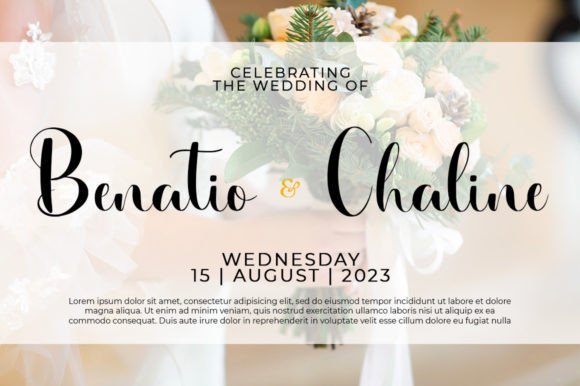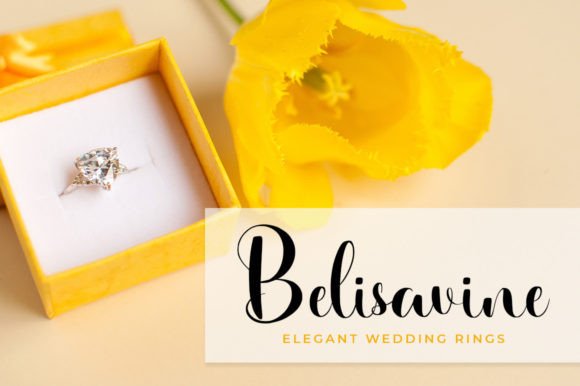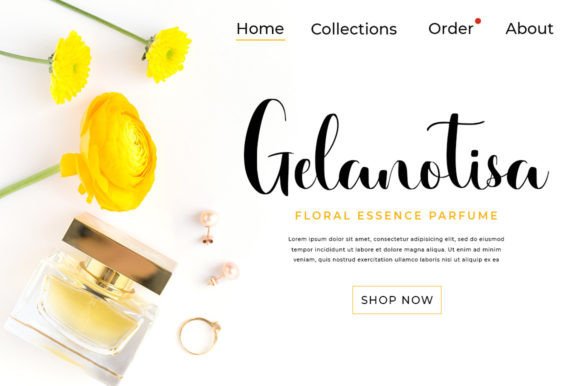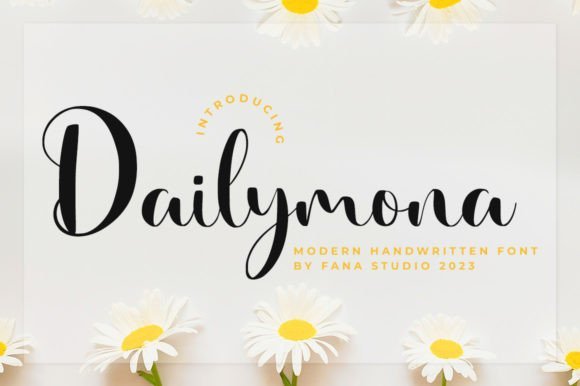
Introduction to Dailymona Font
Dailymona is a stylish and beautiful script font with an elegant and modern look.
It is perfect for many different projects such as logos, branding, invitations, stationery, wedding designs, social media posts, advertisements, product packaging, product designs, labels, photography, watermarks, special events, and anything that needs handwritten taste This font is PUA encoded, which means you can access all of the glyphs and swashes with ease.